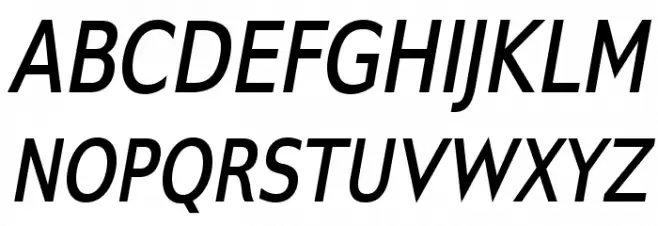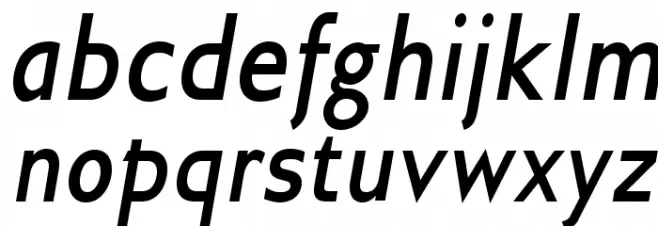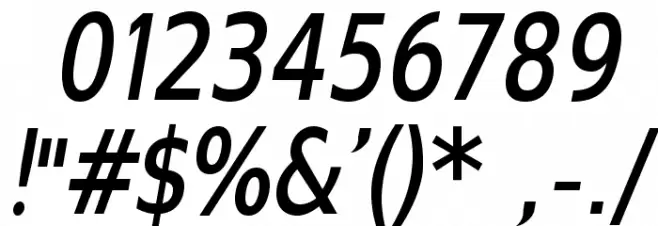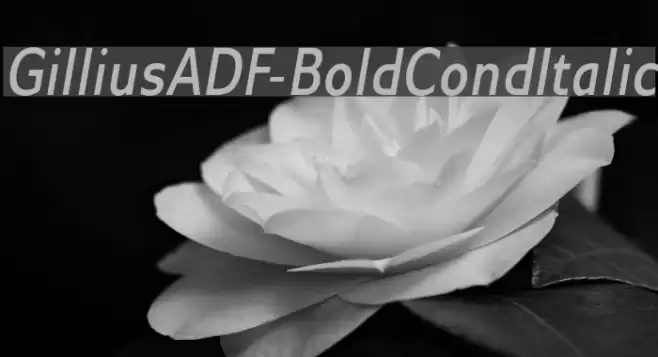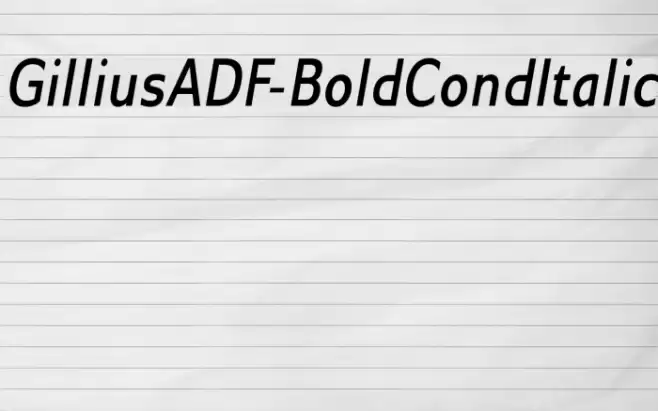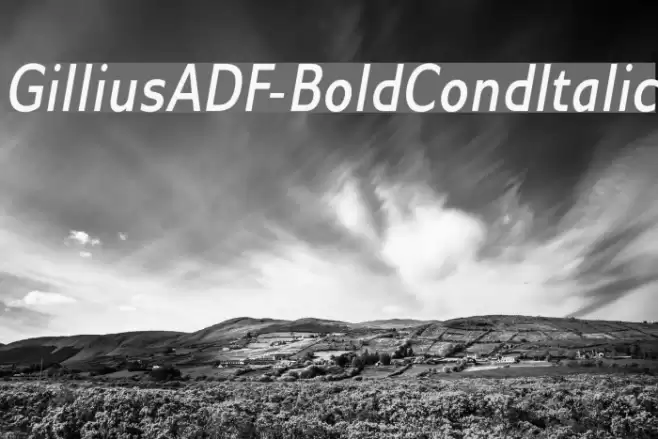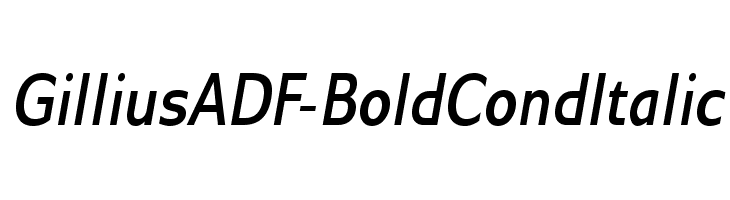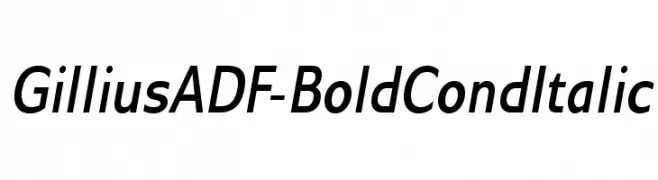
GilliusADF-BoldCondItalic
This font features a bold and condensed italic style, offering a modern and dynamic appearance. The characters are slightly slanted, enhancing the sense of movement and energy. The bold weight ensures strong visibility and impact, making it suitable for attention-grabbing text. The condensed width allows for efficient use of space, making it ideal for headlines or titles where space is limited. The font maintains a clean and professional look, with smooth curves and consistent stroke widths, providing a harmonious and balanced aesthetic. The character set includes uppercase and lowercase letters, numbers, and a variety of special characters, ensuring versatility for various design needs.
A bold, condensed italic font with a modern and dynamic style.
- Proposed Projects: Ideal for headlines, posters, branding, and advertising materials where a strong and modern impact is desired.
- Width: Condensed
- Use Case: Headlines, Logos, Posters